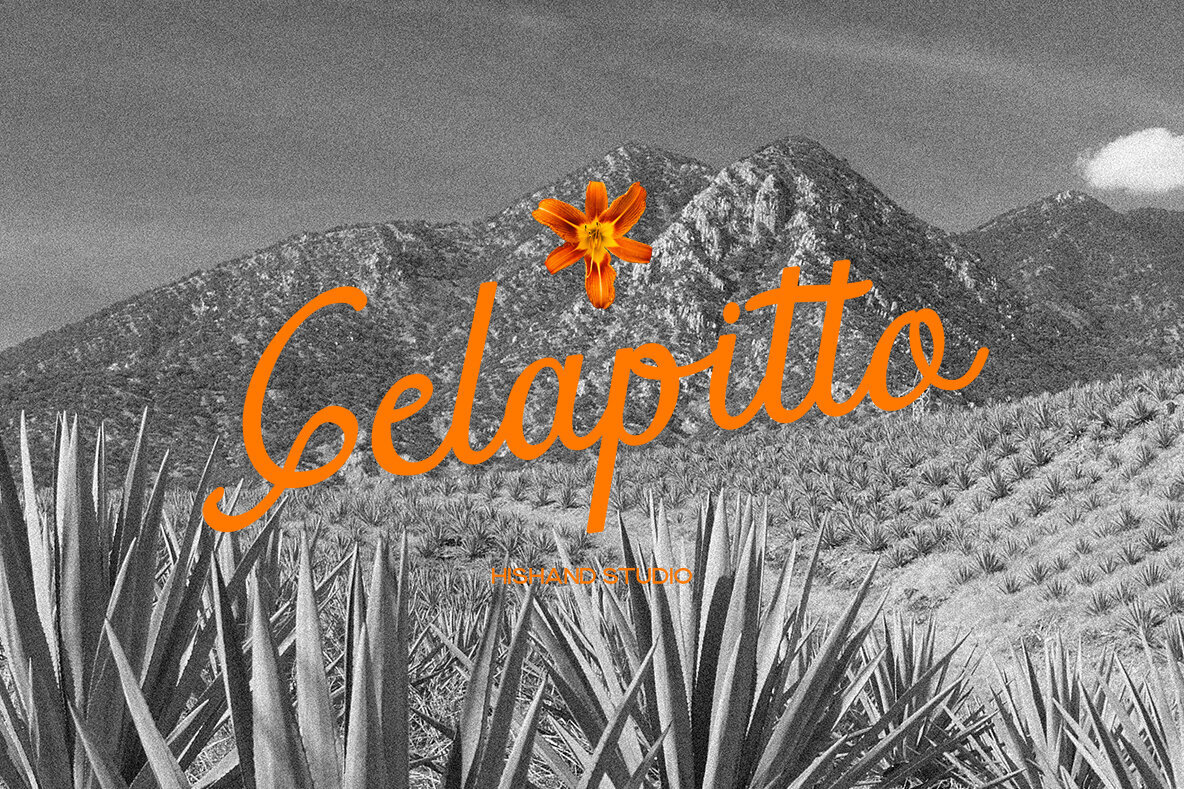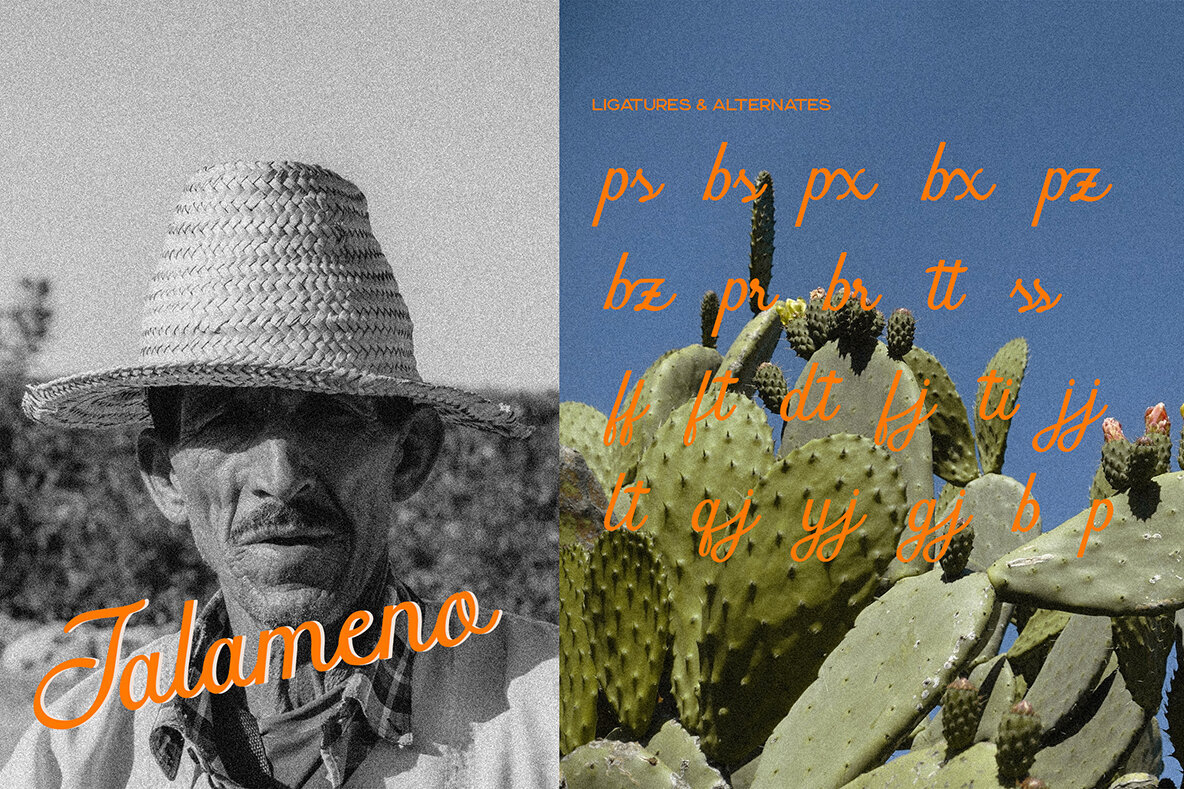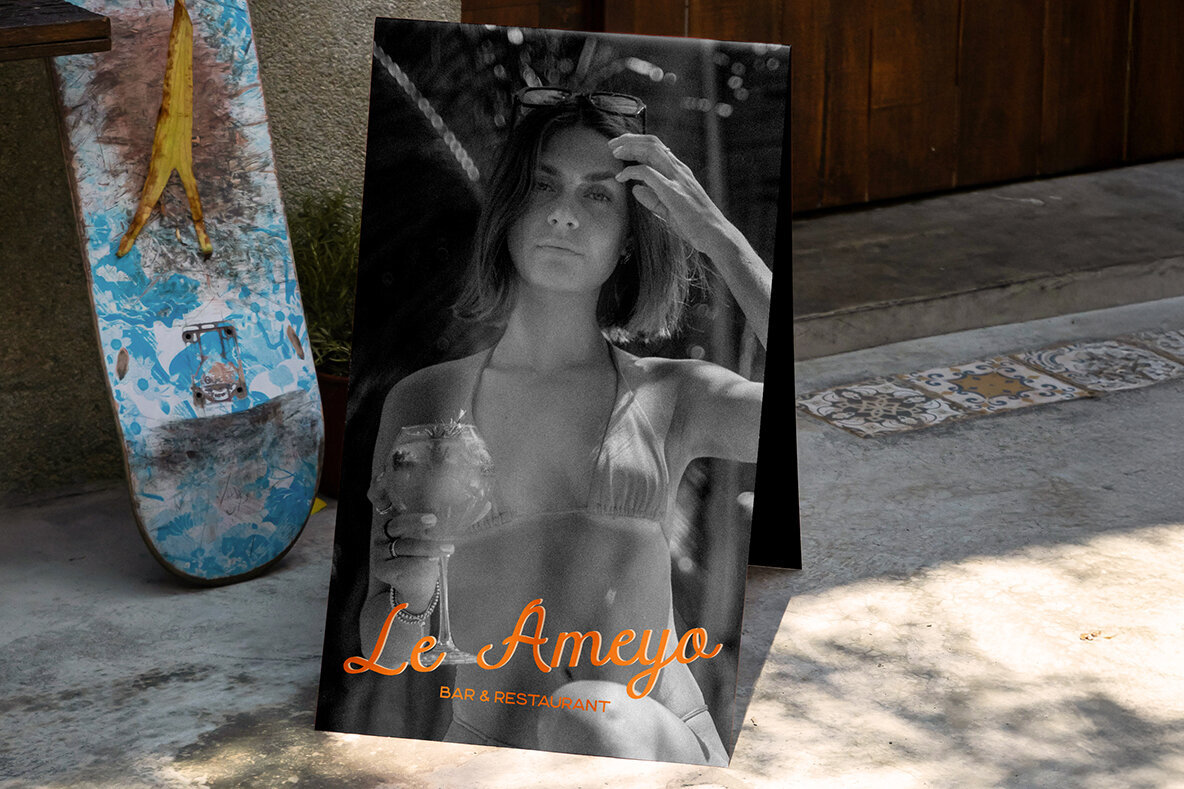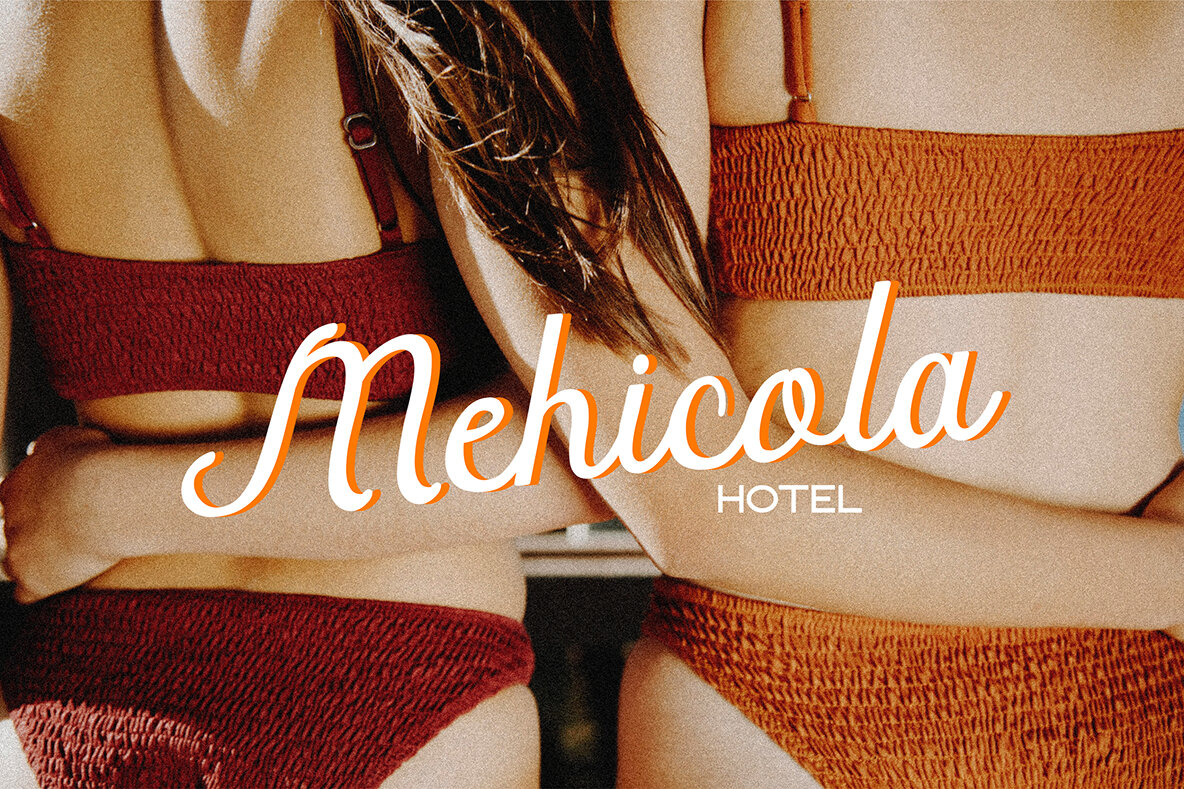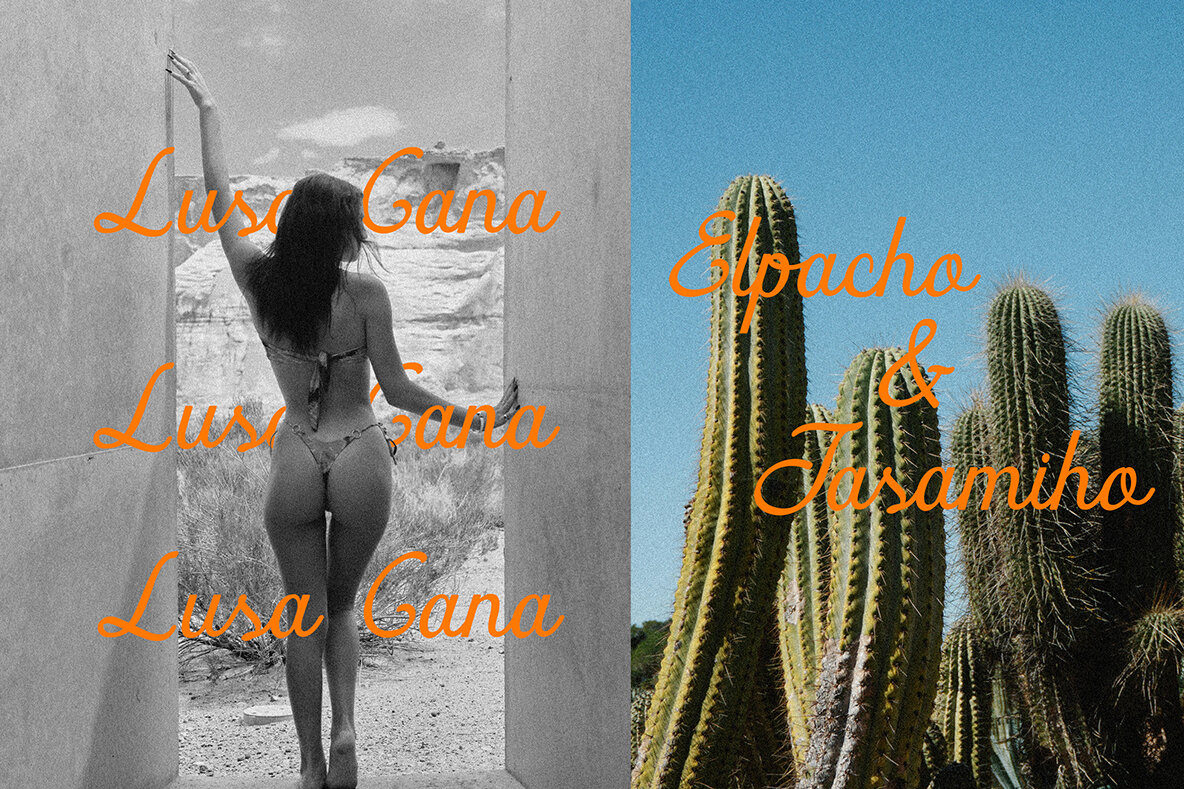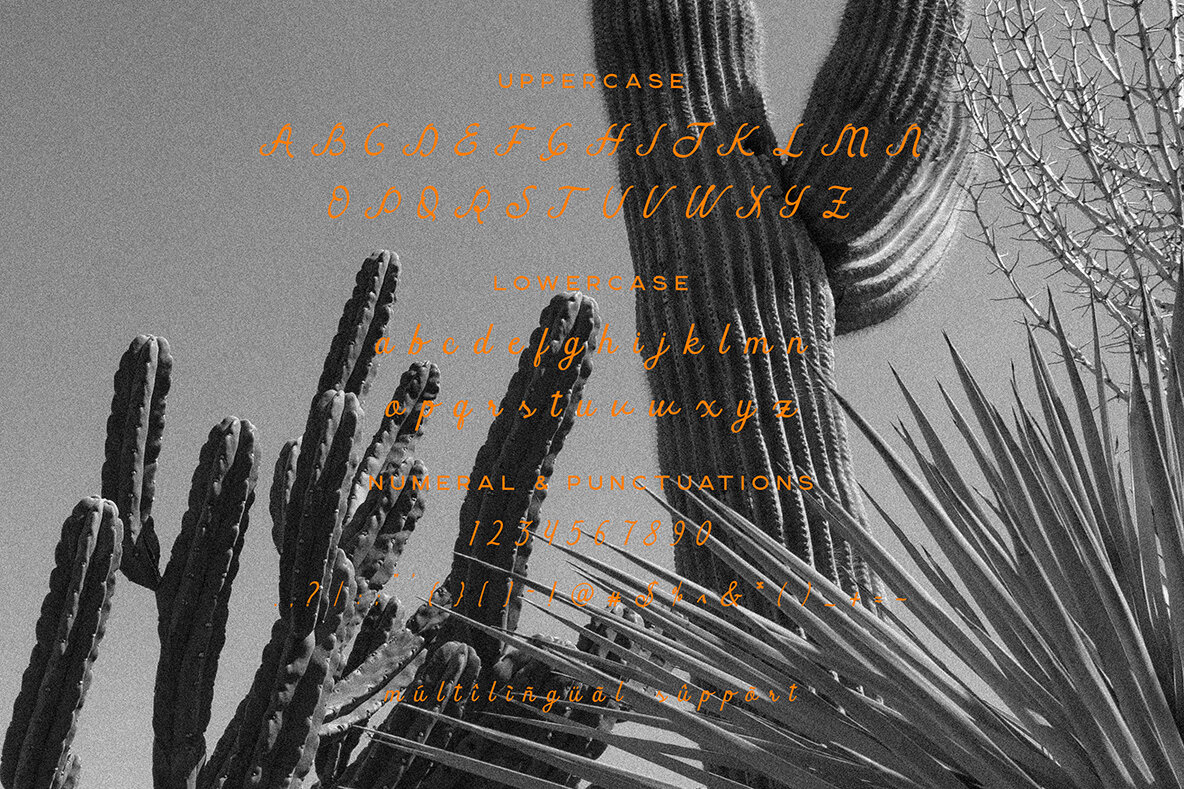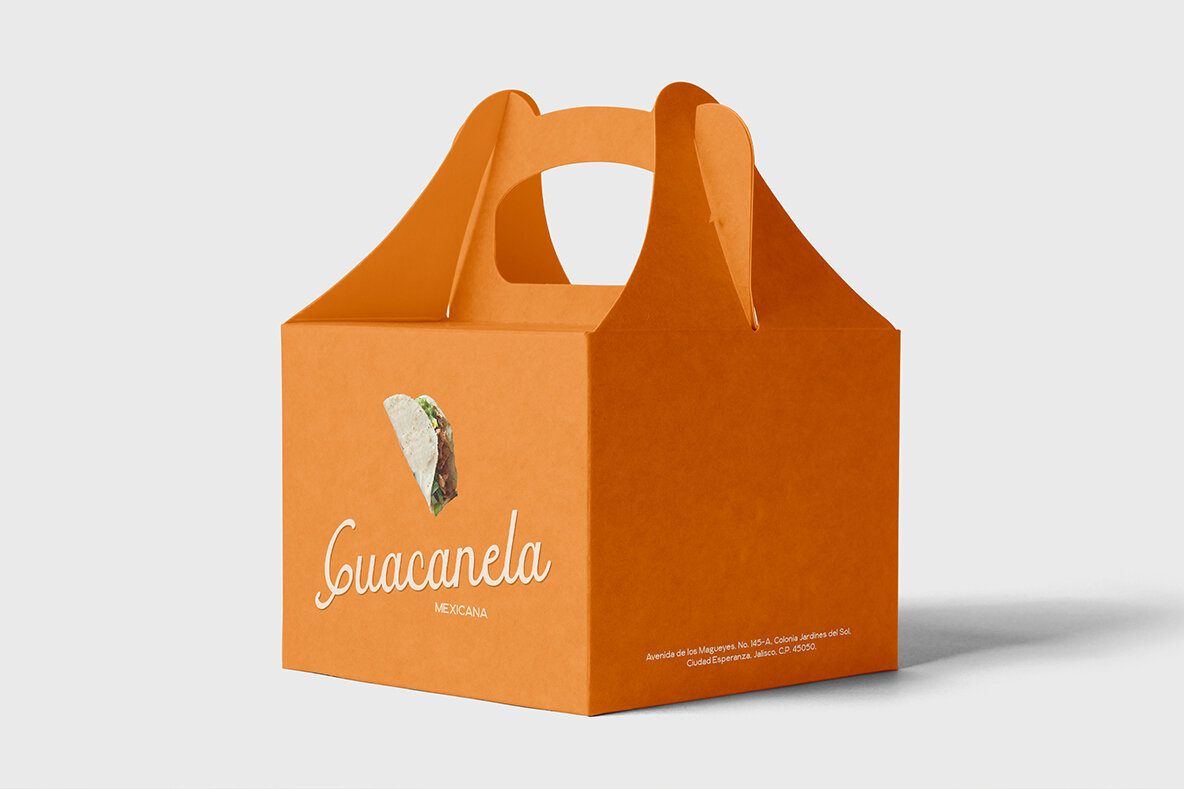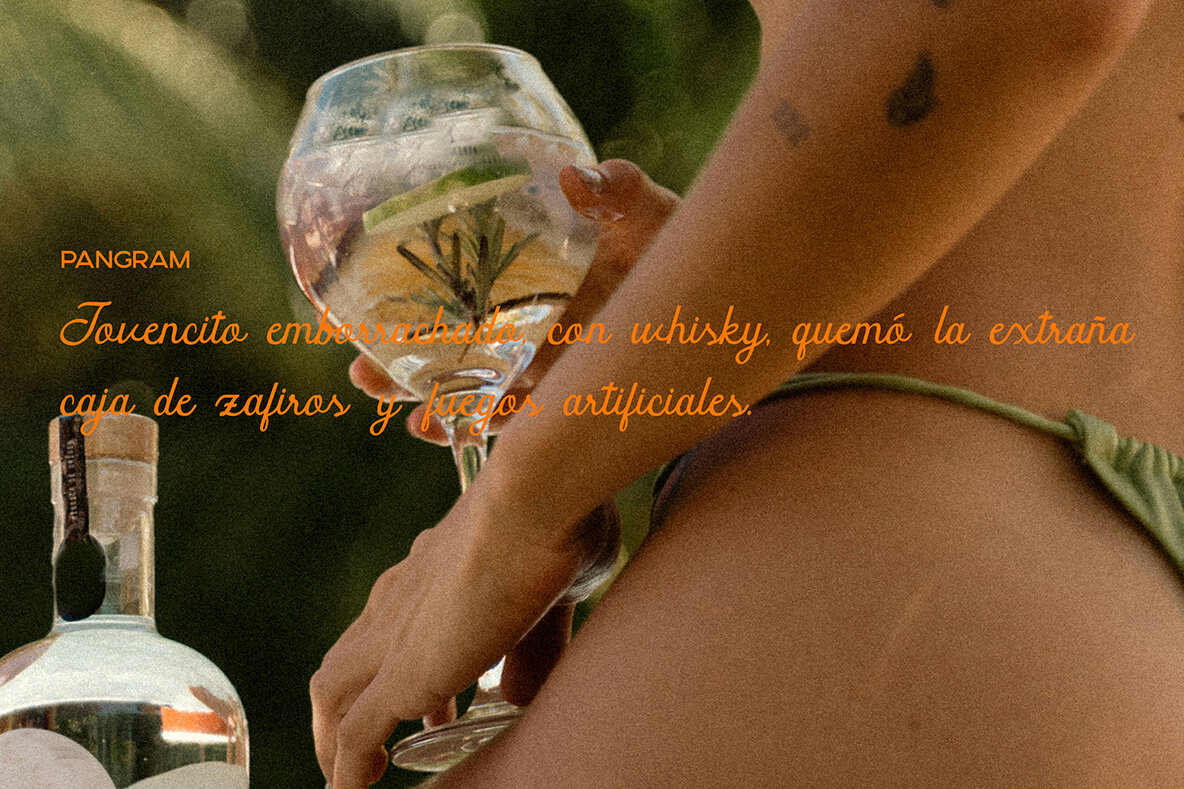
Gelapitto Font
Gelapitto
Gelapitto stands out as a handwritten script font defined by its warm, natural rhythm and smooth, expressive strokes. Its carefully composed curves and gentle loops bring an inviting clarity, making each letter feel genuinely crafted. This script strikes a refined balance between elegance and playfulness, allowing it to convey personality without overwhelming the design. The handcrafted touch of Gelapitto ensures every composition appears thoughtfully written rather than mass-produced. Attention to stroke contrast and graceful letter connections contributes to a high degree of readability, even as decorative flourishes come into play. The font excels in display settings—such as branding, editorial headlines, and packaging—where its fluid energy and distinctive character can shine. Gelapitto’s visual identity feels both modern and timeless, offering designers a versatile solution for projects that require expressive, crafted typography with a unique touch. Features:Gelapitto: Expressive Handwritten Script With Artistic Flow